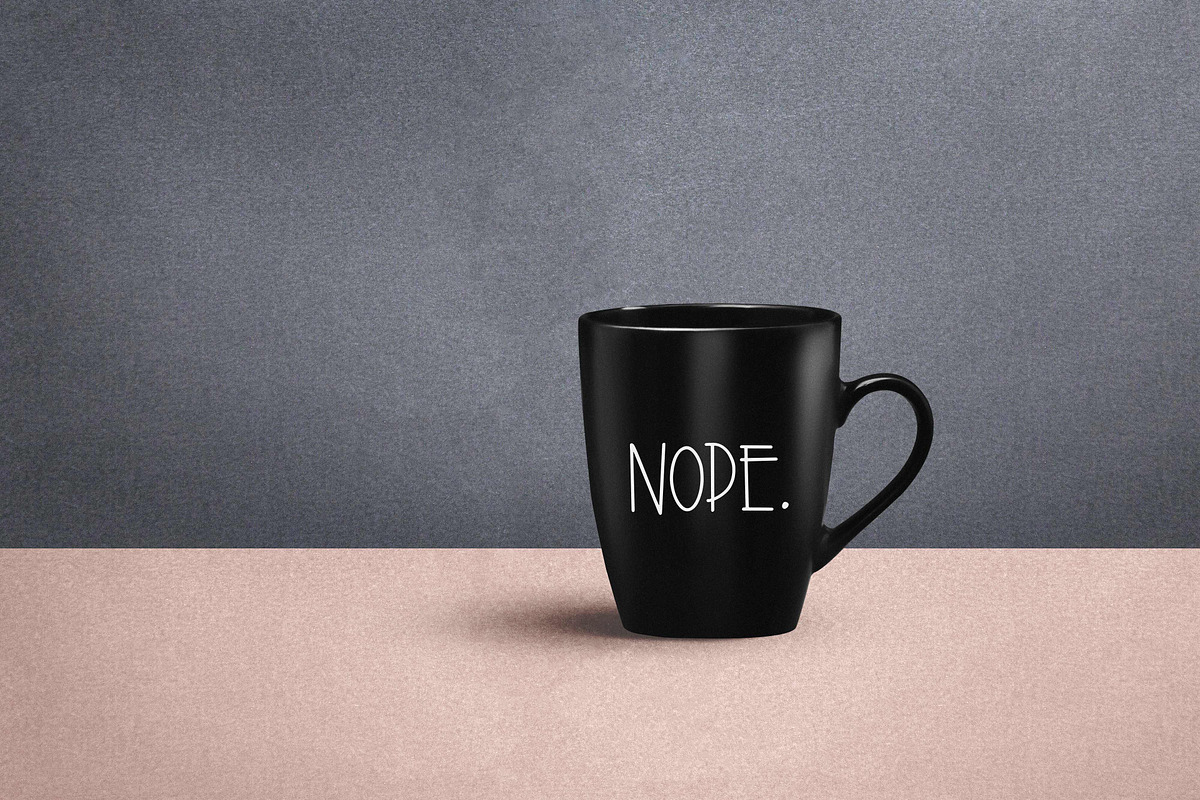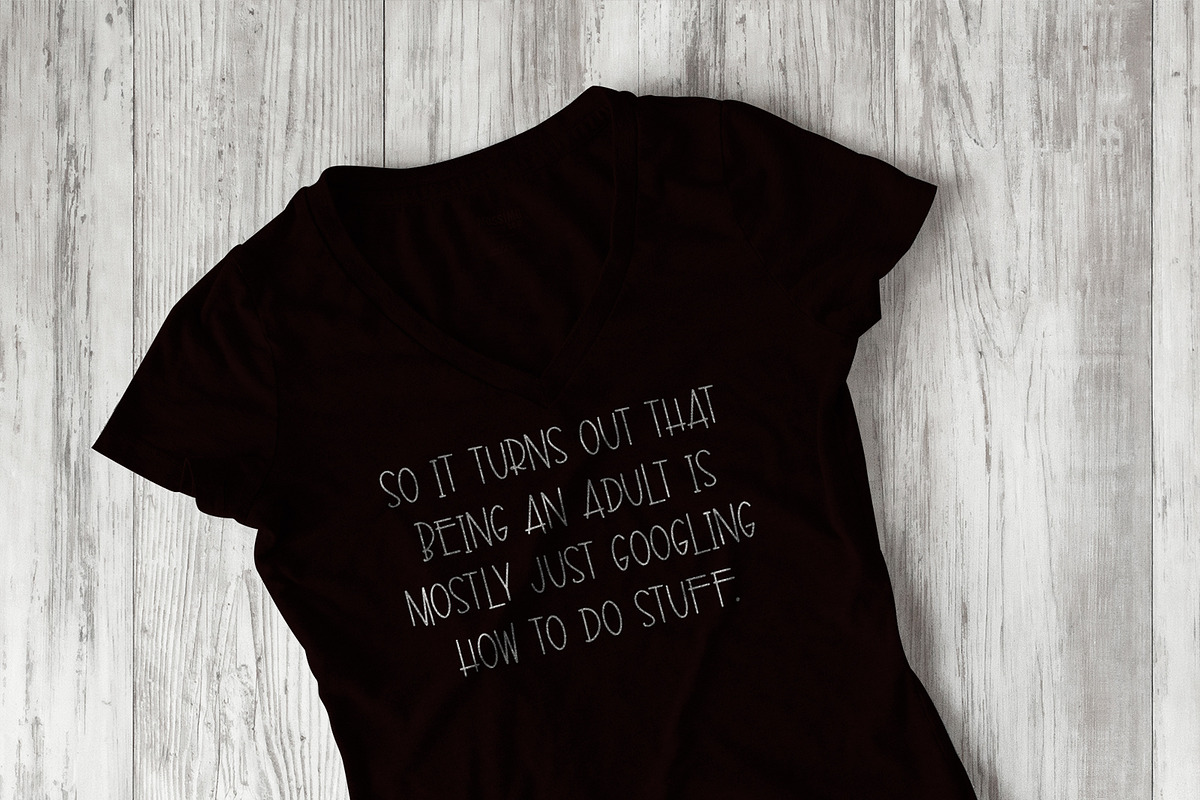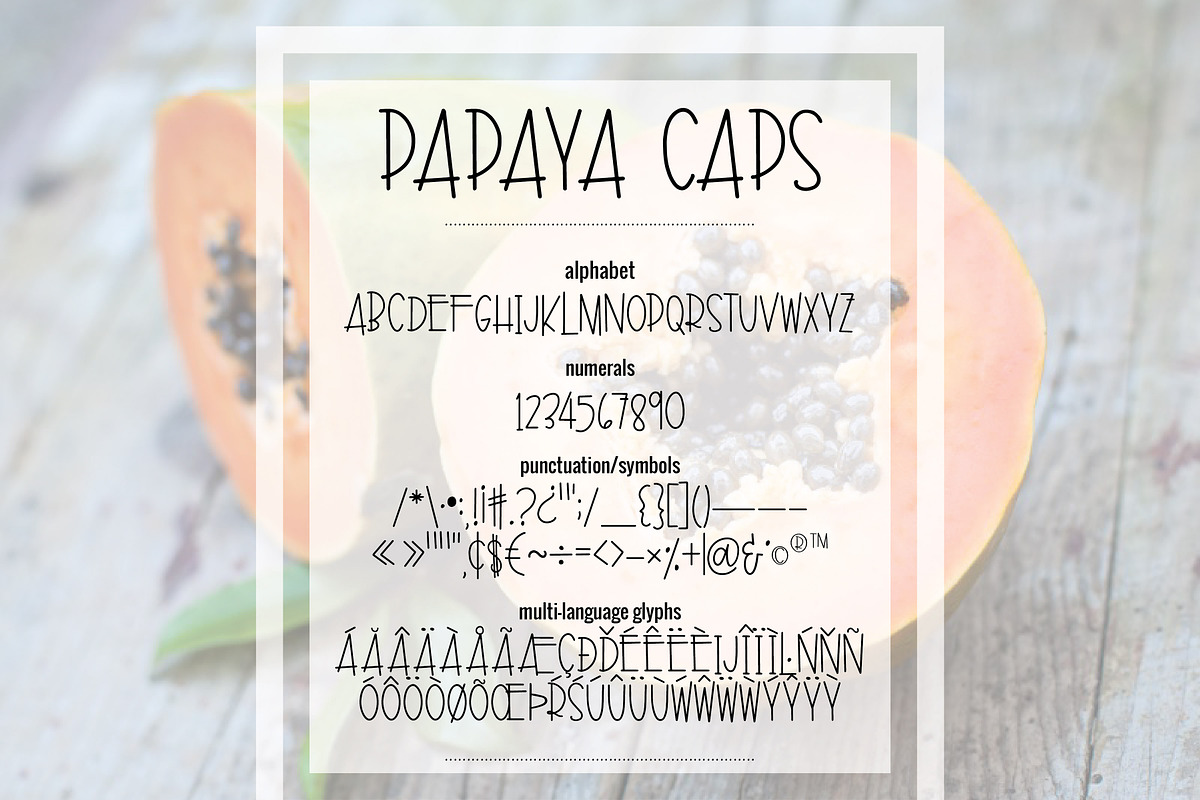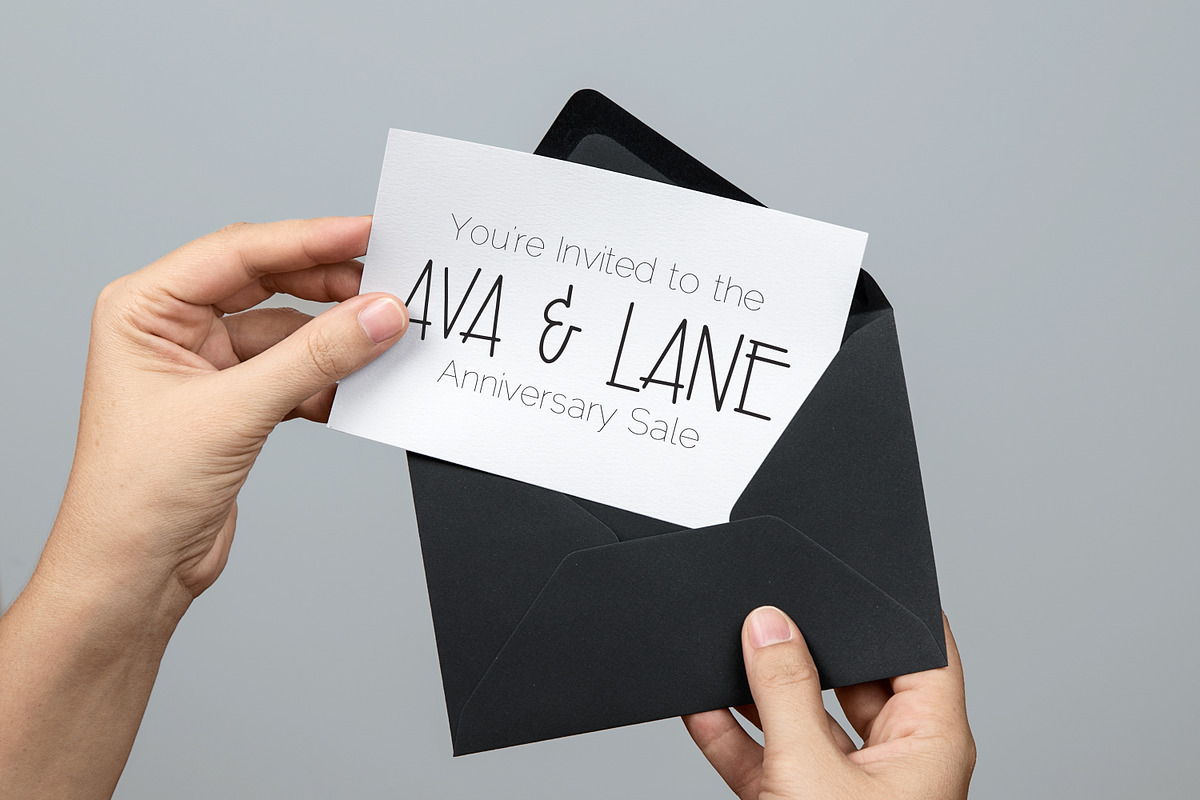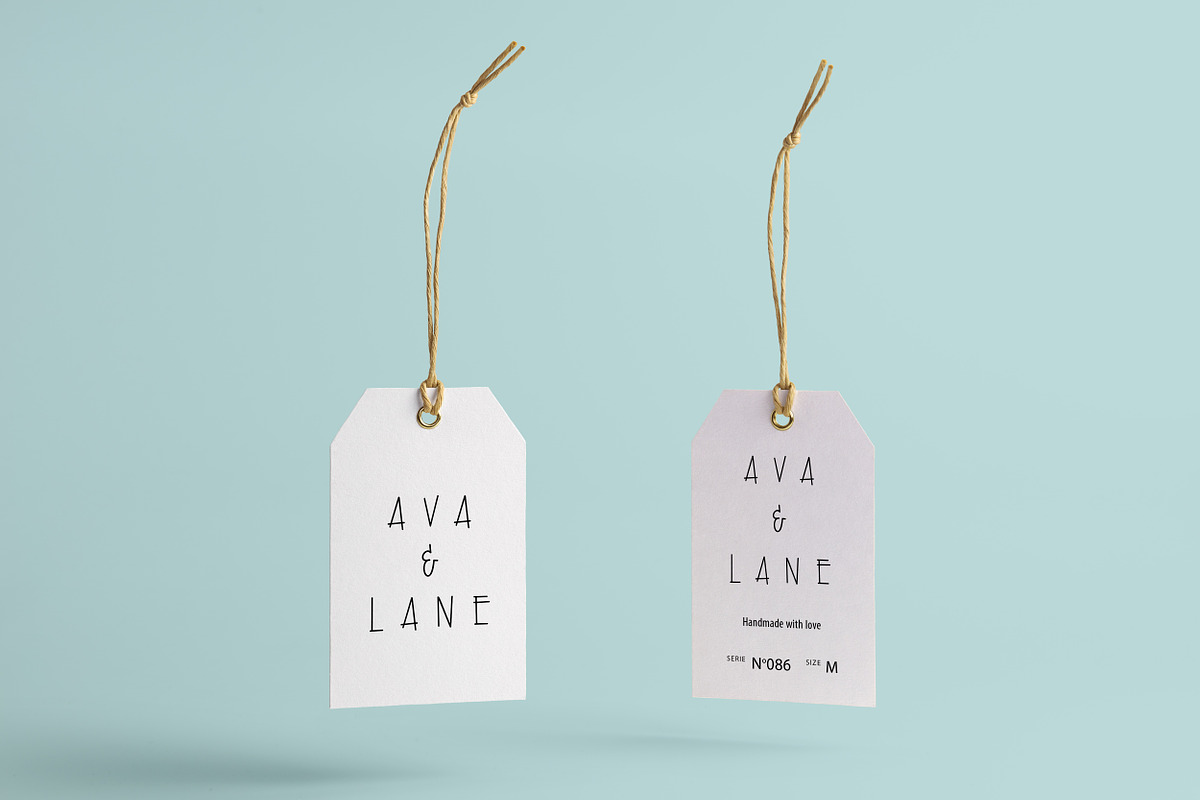
Papaya Caps Typeface
Papaya Caps Typeface by Carly Allred Studio is a font selected for branding, posters, packaging, typography.
- It includes lots of symbols, full punctuation, and multi-language support.
Why Papaya Caps Typeface is worth a look
Papaya Caps Typeface by Carly Allred Studio fits naturally into Branding, posters, packaging, typography.